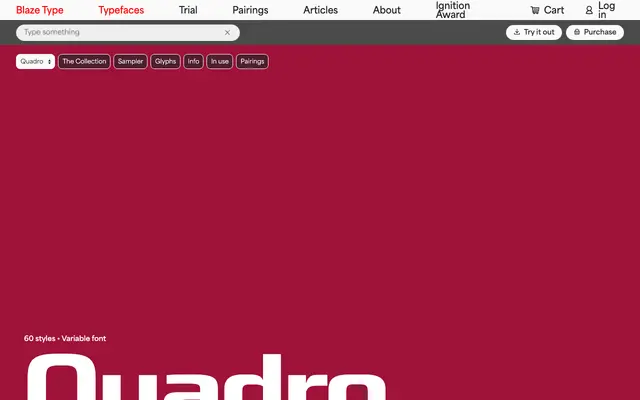
Quadro specimen from Blaze Type
A 60-style variable sans from Blaze Type spanning five width families, from Compressed to Wide, each in six weights with matching slants.
Five width families run from Compressed through Narrow, Normal and Moderate to Wide, each offering six weights from Thin to ExtraBold and a slanted counterpart for every cut. The variable font format ties all 60 styles into continuous axes, making it practical for layout work that demands tight column setting and large display use within the same typeface. A workmanlike system with broad coverage but limited personality at any single setting.
Quadro is a clean geometric sans structured around a systematic width axis, spanning five width families from Compressed to Wide with no serif construction present.